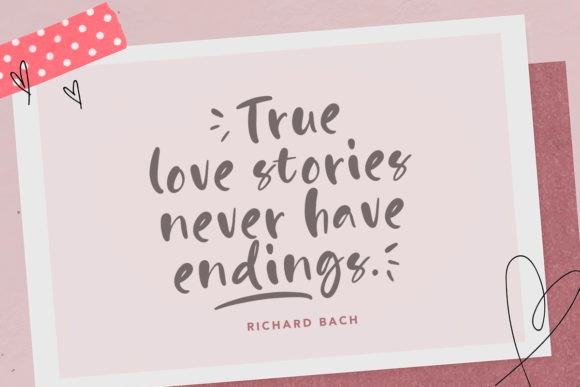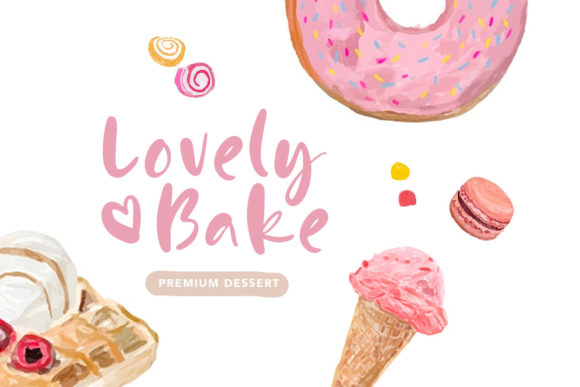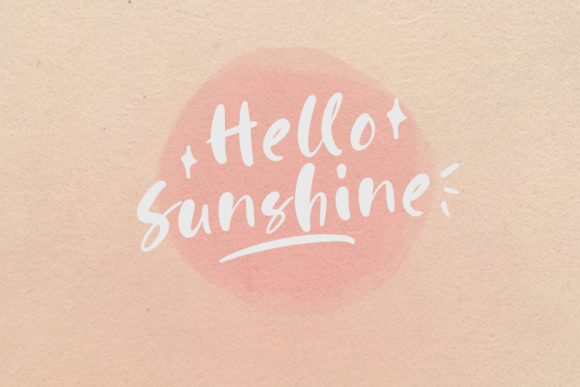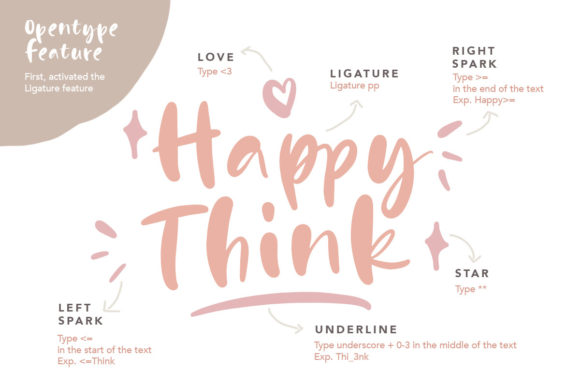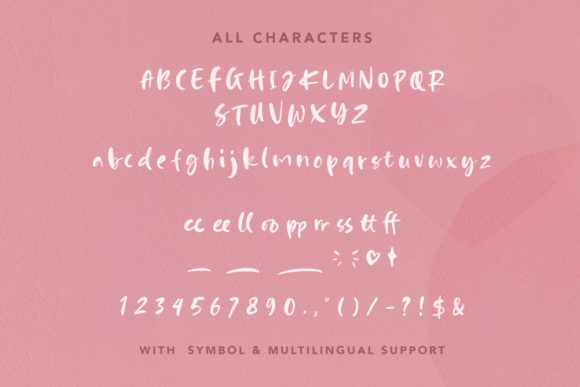
Introducing Happy Pink Font: The Ultimate Handwritten Companion for Designers and Crafters
Are you tired of using the same old fonts in your designs? Look no further! Happy Pink Font is here to revolutionize your creative projects with its clean, relaxed, and friendly handwritten style. This versatile font is perfect for a wide range of designs, from digital media to print materials, and is sure to become your new go-to font.
What Makes Happy Pink Font So Special?
Happy Pink Font boasts a neat and simple style that sets it apart from other handwritten fonts. Its clean lines and relaxed vibe make it perfect for designs that require a friendly and approachable tone. Whether you’re working on a logo, a social media post, or a crafting project, Happy Pink Font is sure to bring a touch of warmth and personality to your work.
Key Features of Happy Pink Font
- Clean and Simple Style: Happy Pink Font features a neat and uncluttered design that’s easy on the eyes.
- Relaxed and Friendly Vibe: The font’s relaxed tone makes it perfect for designs that require a friendly and approachable feel.
- Versatile: Happy Pink Font can be used for a wide range of designs, from digital media to print materials.
- Handwritten Style: The font’s handwritten style adds a touch of personality and warmth to your designs.
Use Cases for Happy Pink Font
Happy Pink Font is perfect for a variety of design projects, including:
- Logos and Branding: Use Happy Pink Font to create a friendly and approachable logo that reflects your brand’s personality.
- Social Media Posts: Add a touch of warmth and personality to your social media posts with Happy Pink Font.
- Crafting Projects: Happy Pink Font is perfect for crafting projects, such as card making, scrapbooking, and journaling.
- Digital Media: Use Happy Pink Font in your digital media projects, such as videos, presentations, and e-books.
Why Happy Pink Font Should Be Your Go-To Font
Happy Pink Font has the potential to become your favorite go-to font due to its versatility and wide range of uses. Its clean and simple style makes it easy to read and understand, while its relaxed and friendly vibe adds a touch of personality to your designs. Whether you’re a designer, crafter, or DIY enthusiast, Happy Pink Font is sure to become a staple in your design toolkit.
Tips for Using Happy Pink Font
Here are some tips for getting the most out of Happy Pink Font:
- Experiment with Different Sizes: Happy Pink Font looks great in a variety of sizes, from small to large.
- Pair with Other Fonts: Try pairing Happy Pink Font with other fonts to create a unique and interesting design.
- Use for Headings and Body Text: Happy Pink Font is perfect for both headings and body text, making it a versatile addition to your design toolkit.
In conclusion, Happy Pink Font is a clean, relaxed, and friendly handwritten font that’s perfect for a wide range of designs. Its neat and simple style, combined with its relaxed and friendly vibe, make it a versatile addition to any design toolkit. Whether you’re a designer, crafter, or DIY enthusiast, Happy Pink Font is sure to become your new go-to font.